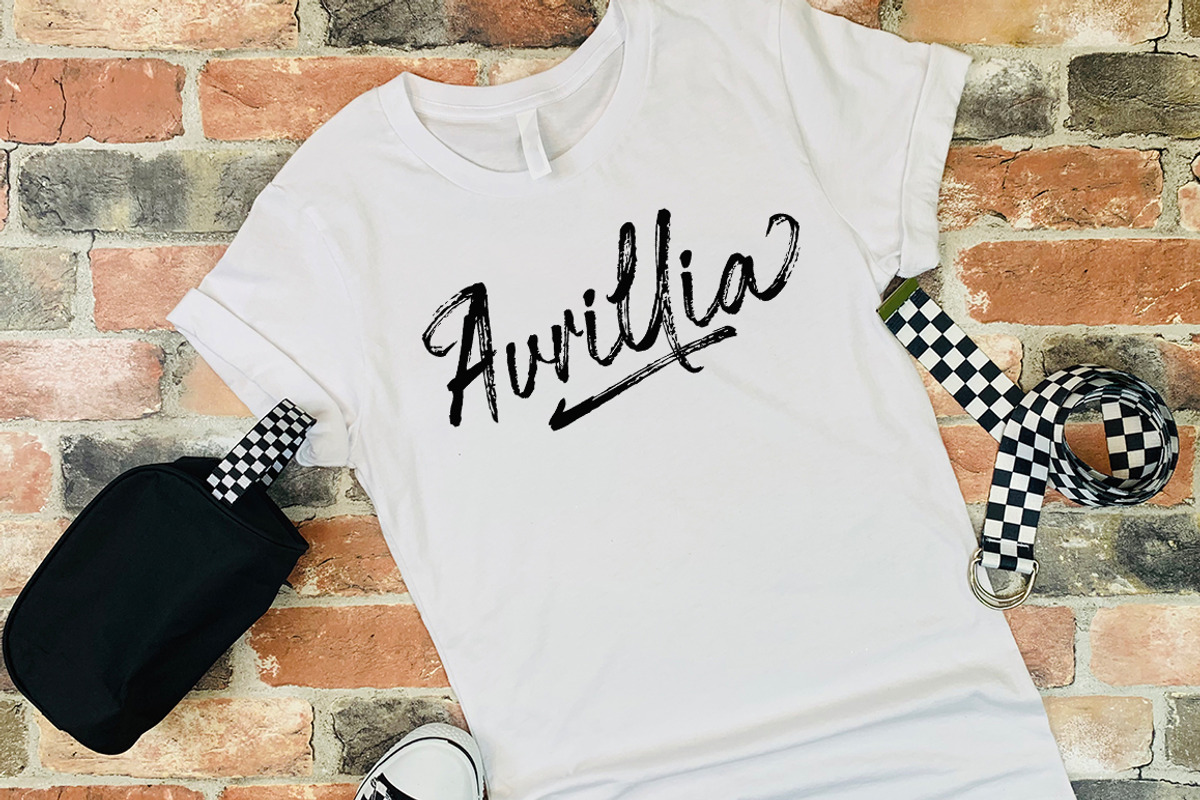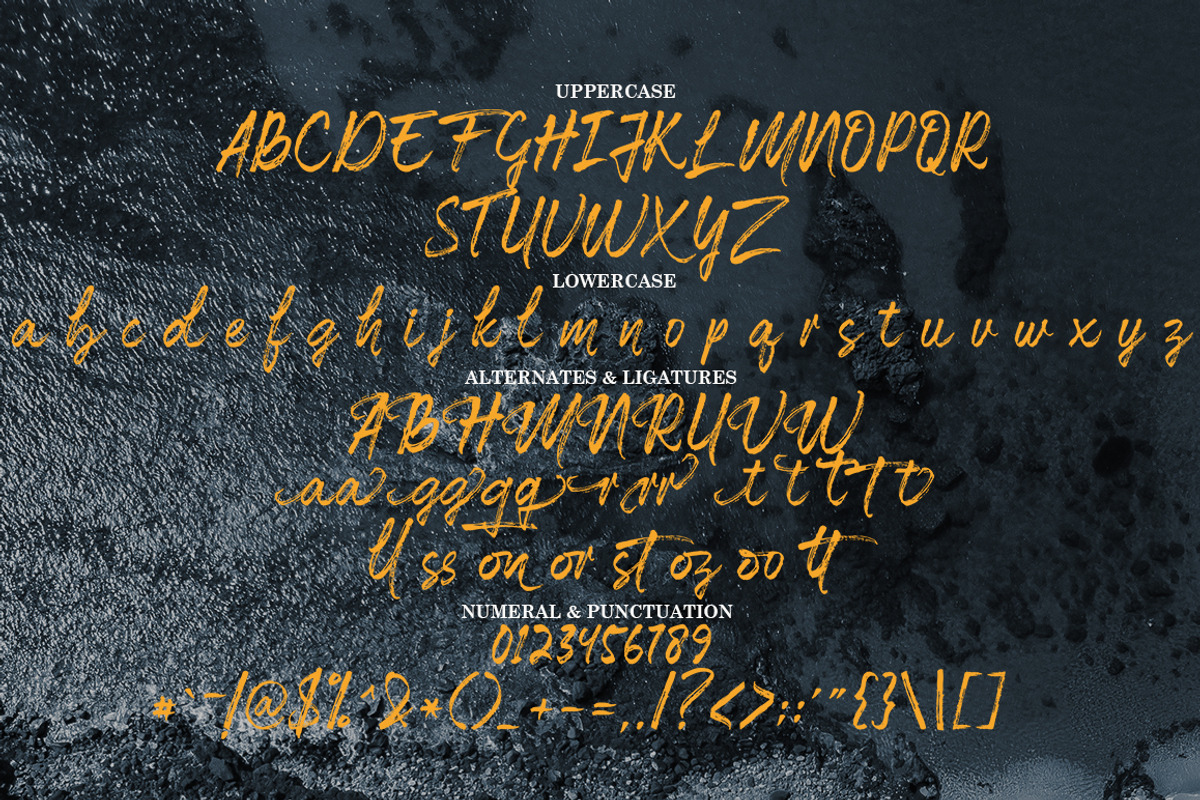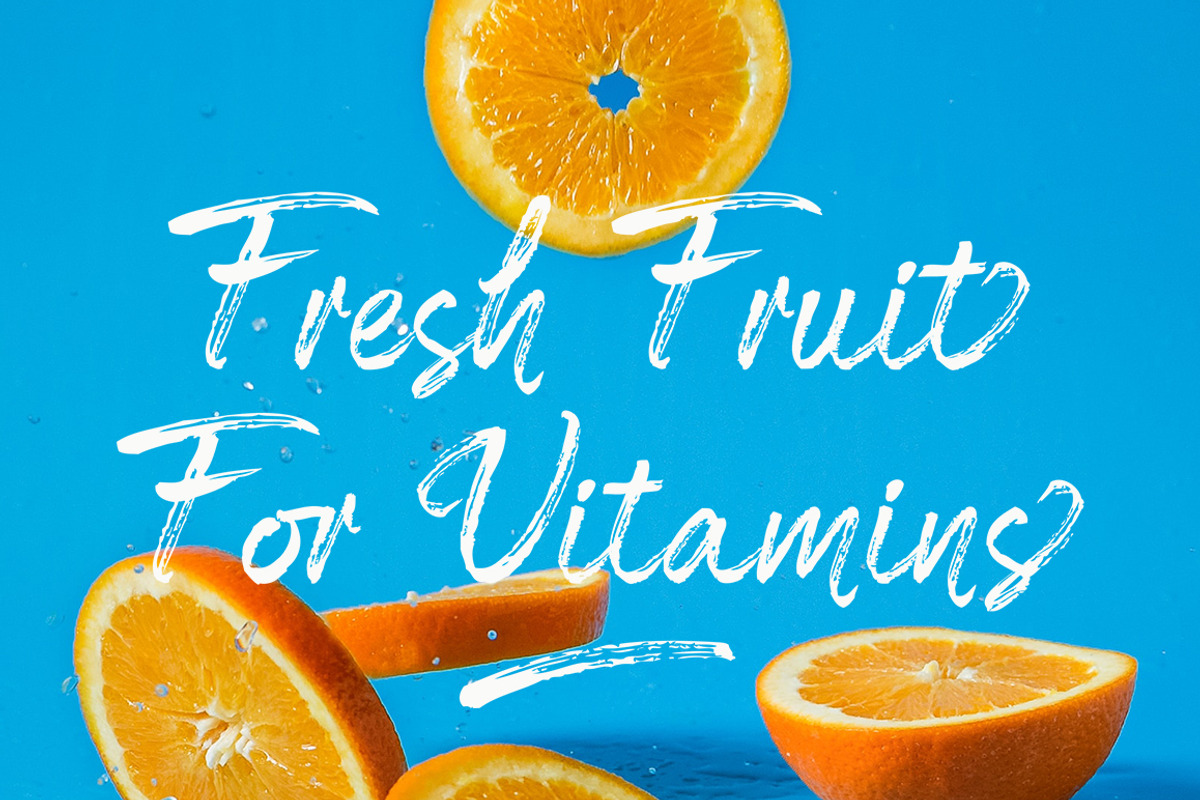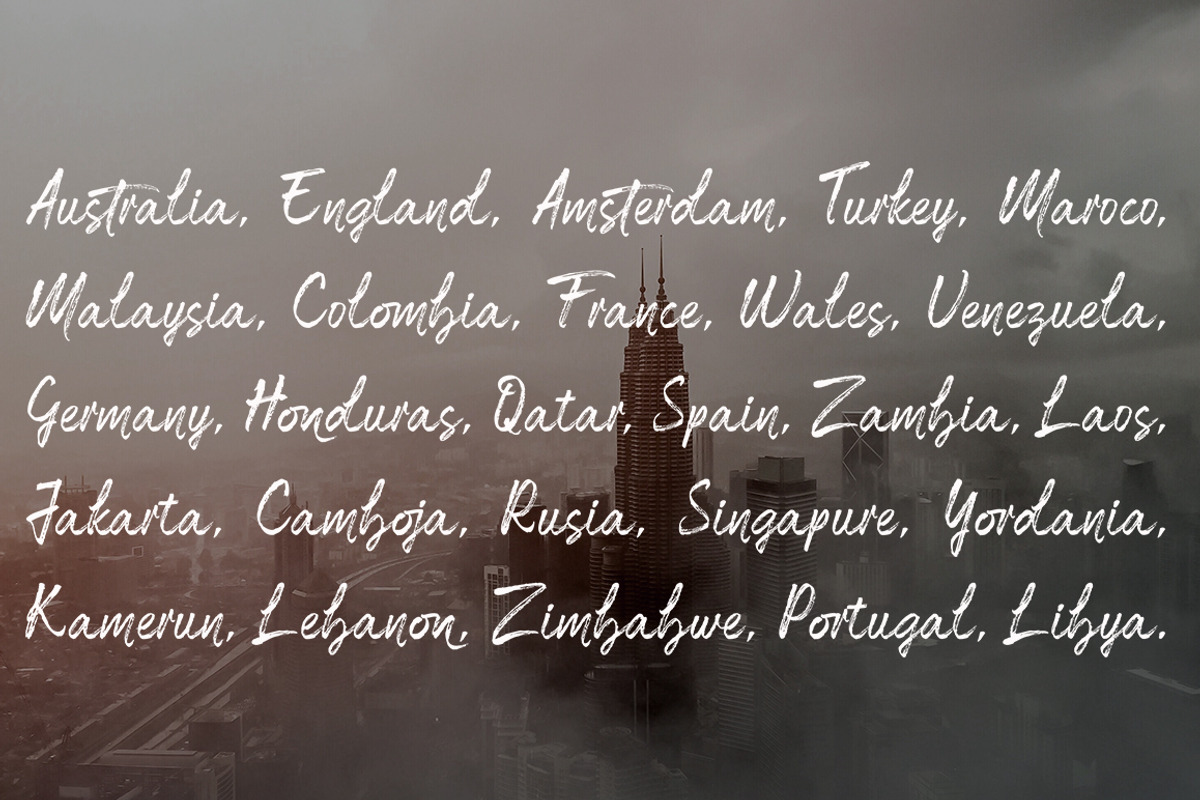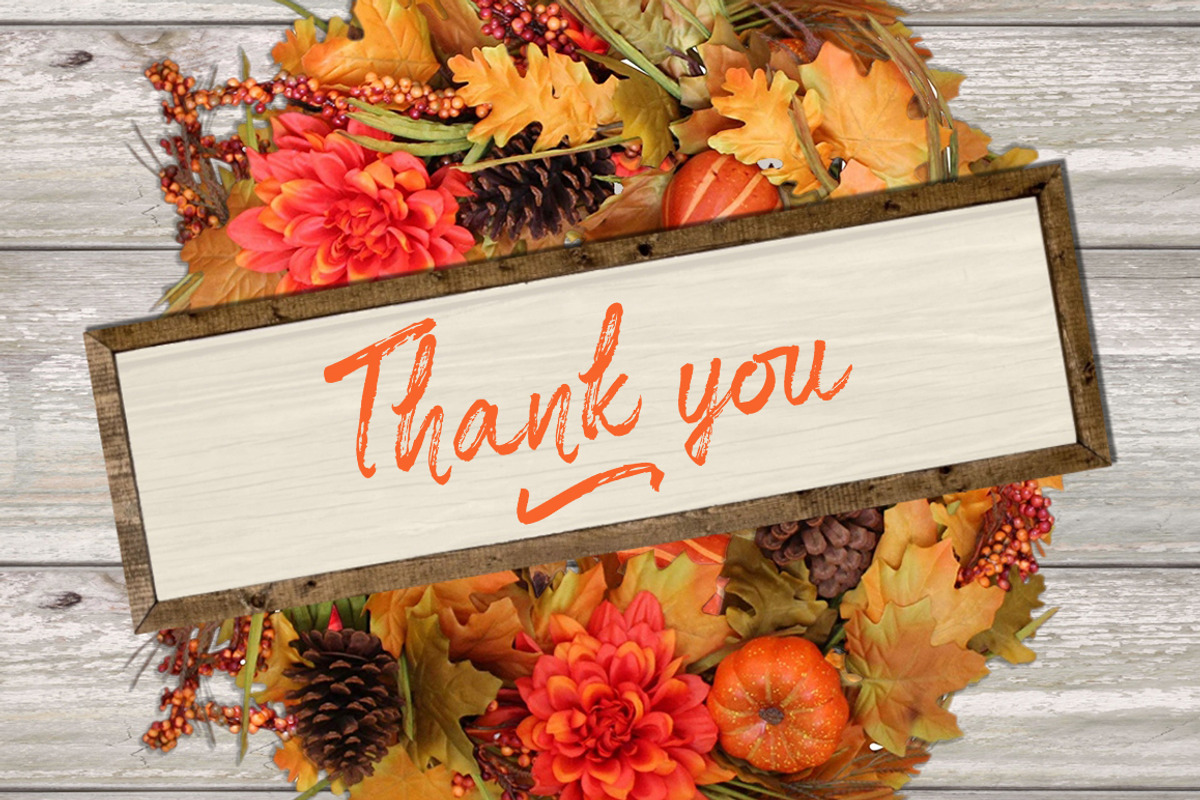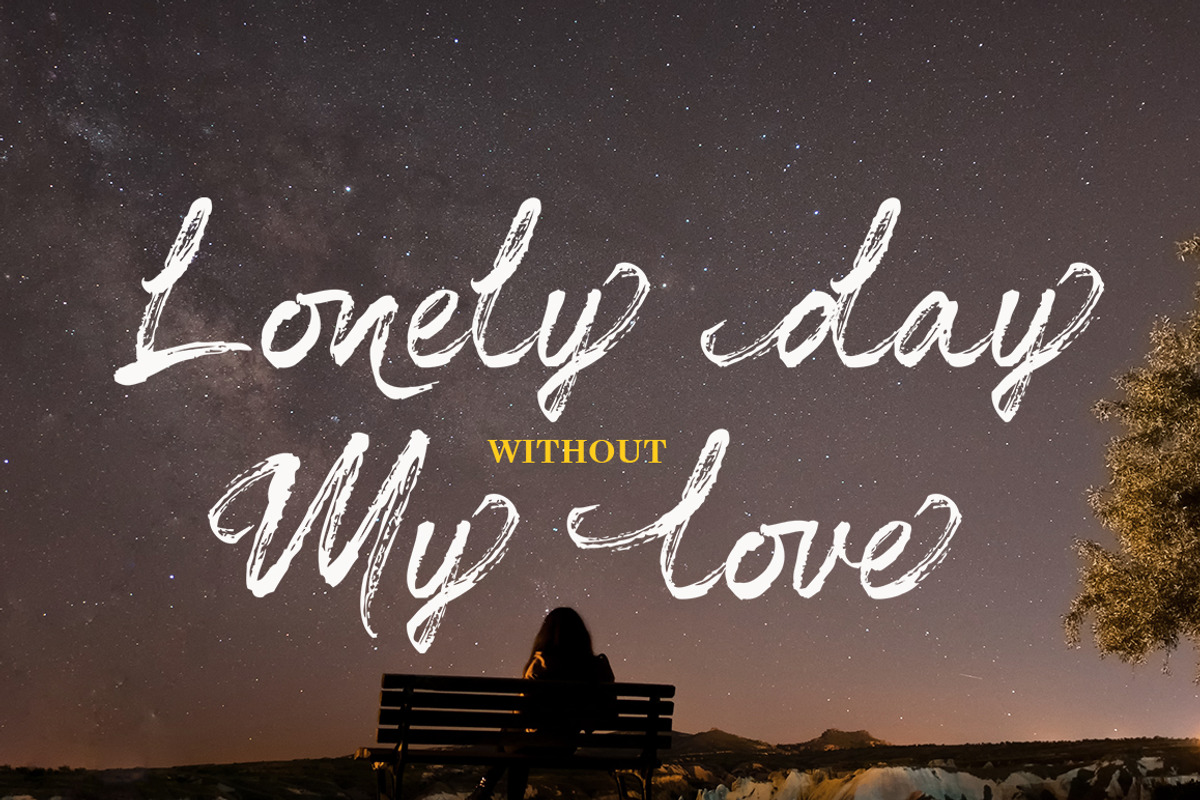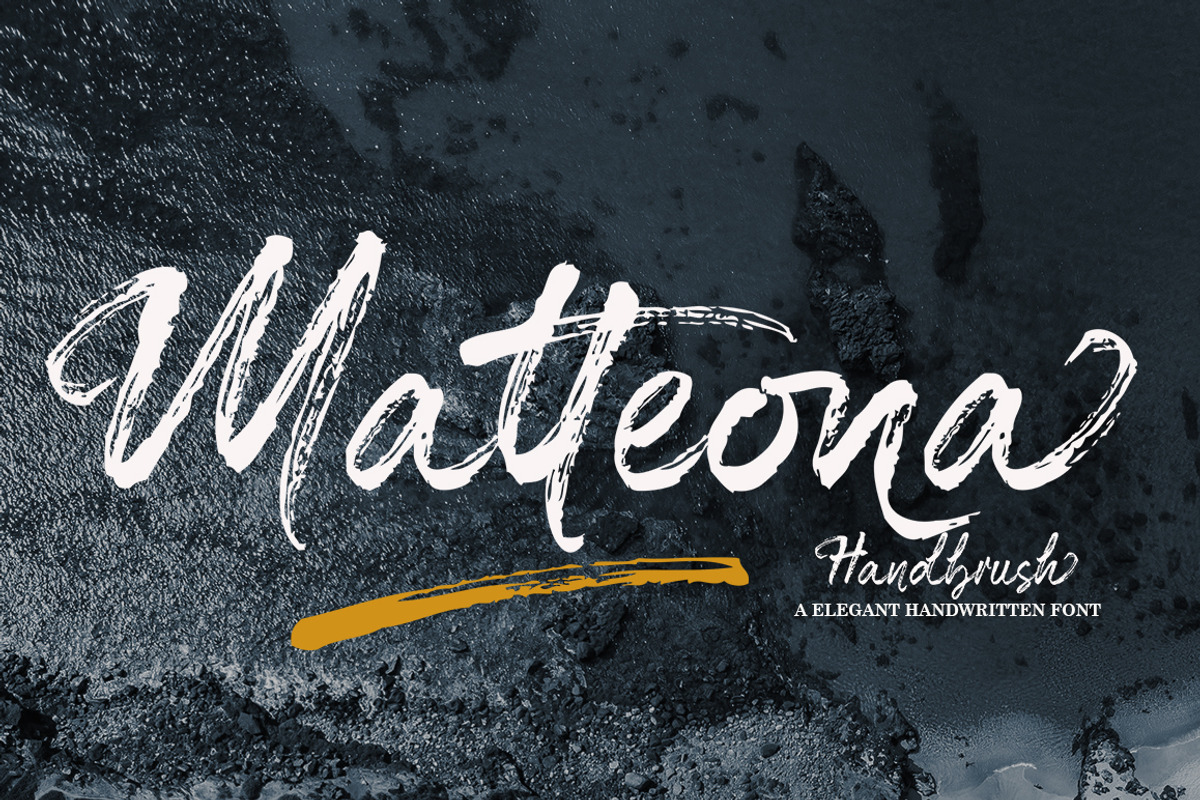
Matteona - Handbrush
Matteona is a textured brush font, a contemporary approach to design, naturally handmade and with underscores. It also has alternatives and ligatures that make your design more attractive.Suitable for use in title design such as clothing, invitations, tittle books, stationery designs, quotes, branding, logos, greeting cards, t-shirts, packaging designs, posters and more.